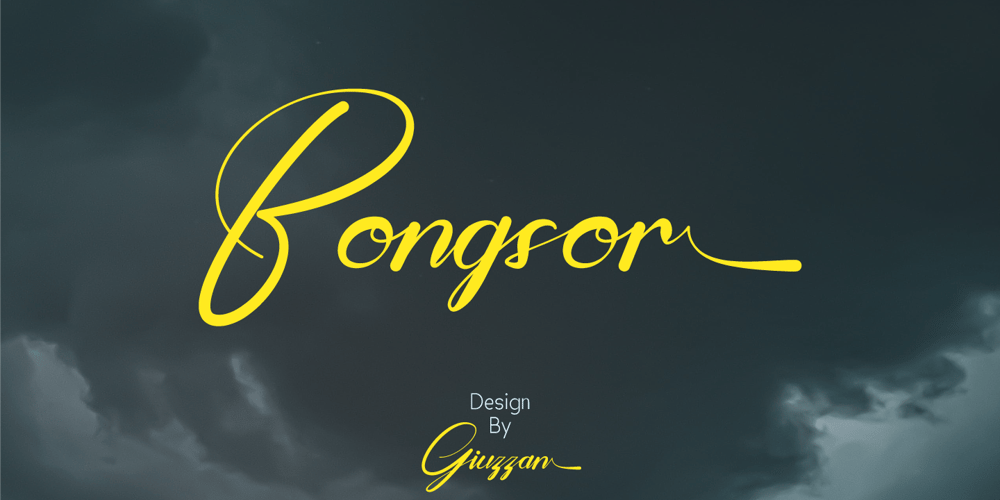
Bongsor Font Family was designed by Muhamad Fauzan and published by Giuzzan. Bongsor contains 1 styles and family package options. Meet Bongsor, a captivating handwritten font that effortlessly blends creativity with modern style. Its fluid strokes and carefully crafted characters add a personal touch to your designs. Perfect for invitations, posters, and branding, Bongsor brings a unique charm, making your text stand out with an authentic, handwritten feel. Embrace the artistic spirit of Bongsor and elevate your projects with a touch of personalized magic.